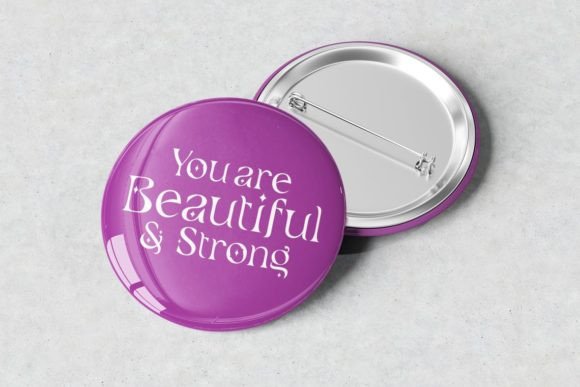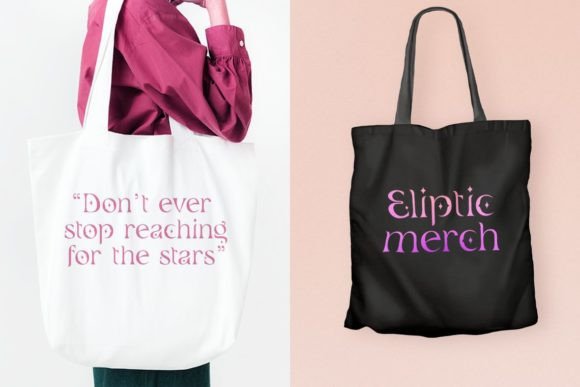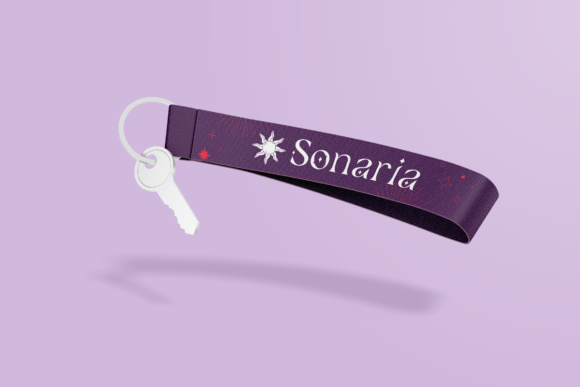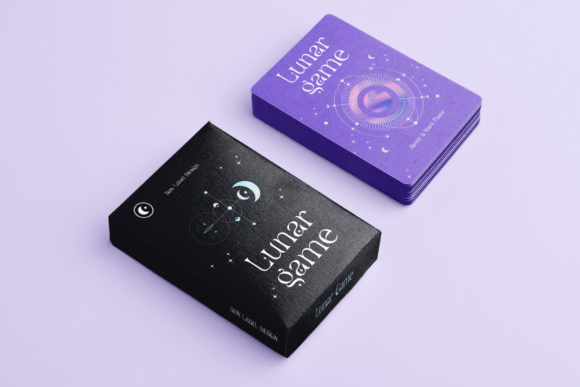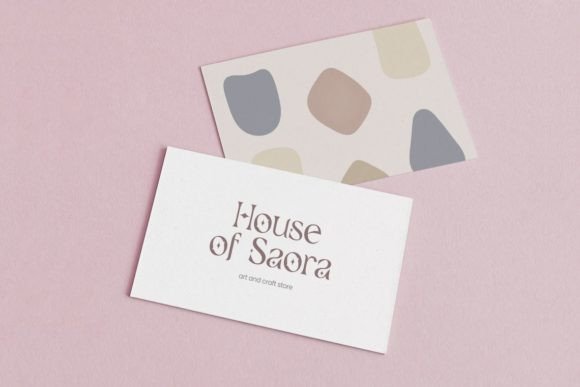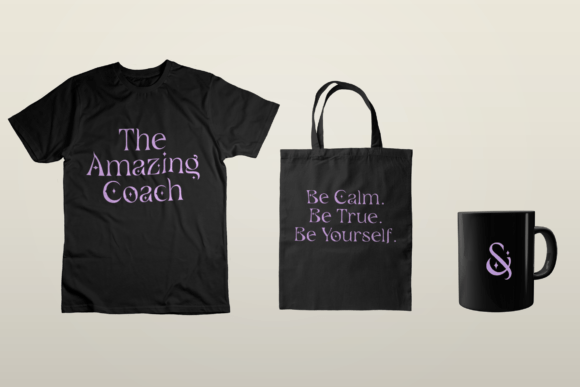
Introducing Geminy Font: A Retro-Modern Marvel with a Quirky Twist
In the world of typography, fonts play a pivotal role in conveying messages, evoking emotions, and creating lasting impressions. For designers, crafters, and astrology enthusiasts, finding the perfect font that blends uniqueness with readability can be a daunting task. This is where Geminy Font comes into the picture, a striking blend of retro-modern style with a quirky look that’s poised to revolutionize your design projects.
The Essence of Geminy Font
Geminy Font is not just another addition to the vast sea of typefaces; it’s a distinctive mixture of retro-modern style with a quirky look that instantly captures attention. The natural stroke of Geminy creates a cute & casual feel, making it an ideal choice for various astrological projects, playful layouts, solid headlines, strong titles, logos, and a myriad of other design endeavors.
Unleashing Creativity with Geminy
What sets Geminy apart is its unique decorative style that breathes life into any design. Whether you’re working on a project that requires a touch of whimsy, a dash of modernity, or a sprinkle of retro charm, Geminy Font is your go-to solution. Its versatility knows no bounds, allowing designers to push the limits of creativity and innovation.
Perfect for Astrological Projects
For those delving into astrology or zodiac-related projects, Geminy Font offers a tailor-made solution. Its quirky yet endearing appearance resonates well with the mystical and celestial themes often associated with astrology. By incorporating Geminy into your designs, you can achieve a look that’s both captivating and true to your project’s essence.
Crafting Playful Layouts and Solid Headlines
Geminy Font’s natural stroke and casual vibe make it an excellent choice for crafting playful layouts that engage and solid headlines that stand out. Its decorative style ensures that your titles and headings are not only readable but also visually appealing, making your content hard to ignore.
Strong Titles, Logos, and More
Whether you’re designing a logo that needs to make a statement, creating a title that demands attention, or brainstorming ideas for your next big project, Geminy Font is up to the task. Its unique blend of styles allows for a wide range of applications, from branding and advertising to packaging and digital media.
Why Choose Geminy Font?
So, what makes Geminy Font a preferred choice for designers and crafters? Here are a few compelling reasons:
- Unique Style: A perfect blend of retro-modern and quirky elements, ensuring your designs stand out.
- Versatility: Suitable for a wide range of projects, from astrological and playful designs to logos and headlines.
- Readability: Despite its decorative nature, Geminy maintains a level of readability that’s hard to find in fonts of its kind.
- Cute & Casual Feel: Adds a touch of warmth and approachability to your designs.
Geminy Font is more than just a typeface; it’s a design statement. Its unique blend of retro-modern style and quirky look, coupled with its natural stroke and casual feel, makes it an invaluable asset for designers and crafters. Whether you’re working on astrological projects, aiming to create playful layouts, or designing solid headlines and logos, Geminy Font is your key to unlocking a world of creative possibilities. So, why wait? Dive into the world of Geminy and let your designs speak volumes with a font that’s as unique as you are.